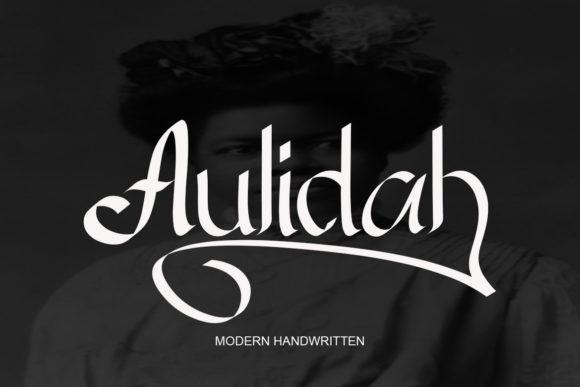
Aulidah Font: Elevate Your Designs with Elegance and Modernity
In the world of typography, few fonts manage to strike a balance between elegance and modernity as effortlessly as Aulidah. This stunning handwritten font is a stylish homage to classic calligraphy, bringing a touch of sophistication to any design project. With its varying baseline, smooth lines, gorgeous glyphs, and stunning alternates, Aulidah is the perfect choice for designers and crafters looking to add a dash of luxury to their work.
The Essence of Aulidah Font
Aulidah Font is a masterpiece of modern calligraphy, carefully crafted to evoke the feeling of handwritten elegance. Its fluid strokes and dynamic connections give it a lively, organic feel that sets it apart from more traditional fonts. Whether you’re working on a branding project, a wedding invitation, or a packaging design, Aulidah’s unique charm is sure to captivate your audience.
Key Features of Aulidah Font
- Varying Baseline: Aulidah’s letters dance along a wavy baseline, creating a sense of movement and fluidity that adds to its elegant appeal.
- Smooth Lines: The font’s smooth, flowing lines give it a sophisticated look that’s perfect for designs that require a touch of refinement.
- Gorgeous Glyphs: Aulidah comes with a range of beautiful glyphs that add an extra layer of depth and character to your designs.
- Stunning Alternates: With a variety of alternate characters to choose from, you can customize your text to create a truly unique look.
Why Choose Aulidah Font?
- Versatility: Aulidah is a versatile font that works beautifully in a variety of design contexts, from logos and branding to invitations and packaging.
- Elegance: Its elegant, refined appearance makes it perfect for designs that require a touch of sophistication.
- Modernity: Aulidah’s modern take on classic calligraphy ensures that your designs will look fresh and contemporary.
- Easy to Read: Despite its elegant appearance, Aulidah is surprisingly easy to read, making it a great choice for body text as well as headlines.
Using Aulidah Font in Your Designs
- Pair it with a sans-serif font: For a striking contrast, try pairing Aulidah with a clean, modern sans-serif font.
- Experiment with alternates: Don’t be afraid to get creative with Aulidah’s alternate characters to add some visual interest to your text.
- Use it for headlines and titles: Aulidah’s elegant appearance makes it perfect for headlines and titles, but don’t be afraid to use it for body text too.
| Font Name | Aulidah Font |
| Author | Sealoung |
In conclusion, Aulidah Font is a stunning handwritten font that brings a touch of elegance and modernity to any design project. With its varying baseline, smooth lines, gorgeous glyphs, and stunning alternates, it’s the perfect choice for designers and crafters looking to create sophisticated, eye-catching designs. Whether you’re working on a branding project, a wedding invitation, or a packaging design, Aulidah is sure to impress.